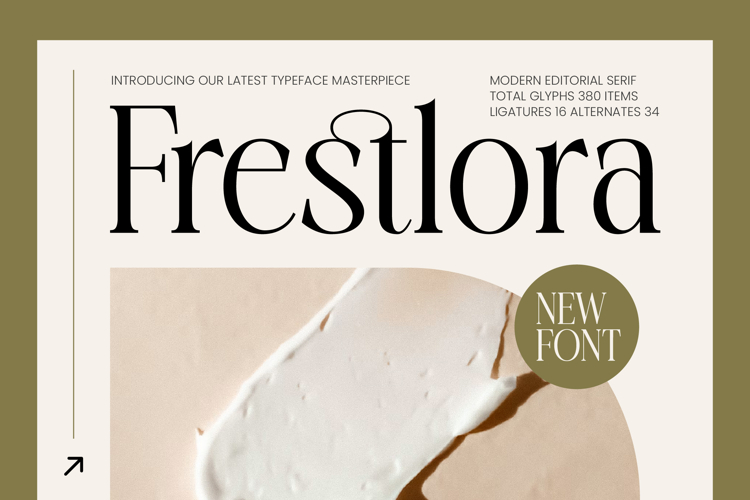
Frestlora - Modern Editorial Serif
Elevate your design projects with the timeless elegance and sophisticated appeal of Frestlora - Modern Editorial Serif. This typeface is a masterfully crafted high-contrast serif that strikes a perfect balance between classic tradition and contemporary flair. Its refined letterforms and sharp detailing exude a sense of high-end luxury, ensuring your headlines and branding stand out with a distinctively polished aesthetic that commands immediate attention.
Exceptional versatility defines the core of this typeface, allowing it to function beautifully across both digital and print media. With its extensive multilingual support, Frestlora - Modern Editorial Serif adapts seamlessly across global markets, making it incredibly versatile for international projects. This comprehensive glyph set ensures that your message remains clear and stylish regardless of the linguistic context, providing a consistent brand voice for any global campaign.
Perfect for creating a premium visual identity, Frestlora - Modern Editorial Serif is the ideal choice for luxury branding, editorial design, and fashion magazines. It is perfect for high-end packaging, boutique logotypes, and sophisticated web design layouts. The inclusion of unique ligatures and alternates allows designers to customize their compositions, creating bespoke typographic arrangements that feel curated, exclusive, and artistically superior.